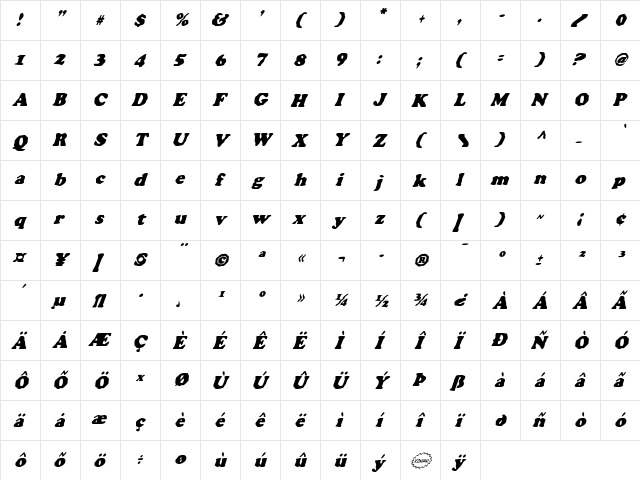
Charlemagne Condensed Italic Font Preview
| Designer | Dan Zadorozny |
Design Context for Charlemagne Condensed Italic Typeface
Charlemagne Condensed Italic is a composed and adaptable typeface that performs quietly and consistently across a wide range of design contexts. Its italic angle brings a sense of urgency and motion to the letterforms. The condensed width makes it efficient for tight spaces without sacrificing legibility.